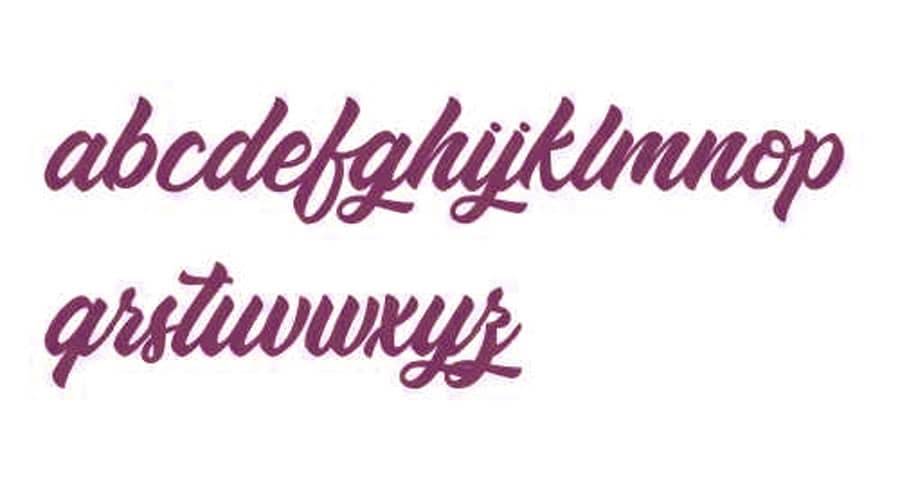
Fiesta Kids Script Font
Welcome back! Fiesta Kids Font is now available! Kids’ Fiesta This Font is unique for you because it is a unique and refreshing Signature font that created to fit your requirements in developing a stylish and classy design.
The Font was designed by typhoontype-s-srisopha on February 28, 2019.
Fiesta Kids Script Font is ideal for jerseys, advertising, postcards, wedding designs, requests, icons, business cards, covers, shirts, social media posts, and other projects. It will also make a detailed image, text with different colours, and text.
StyleScript, Calligraphy
Designertyphoontype-s-srisopha